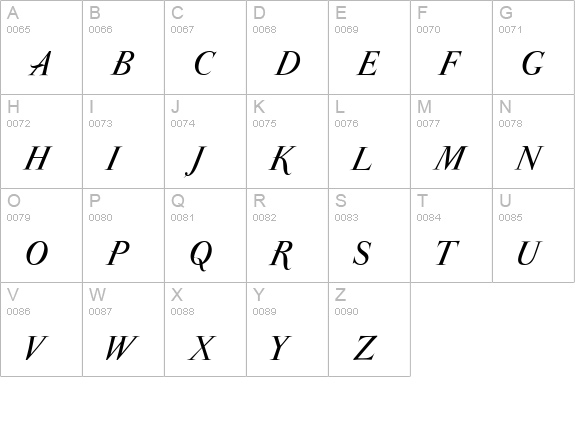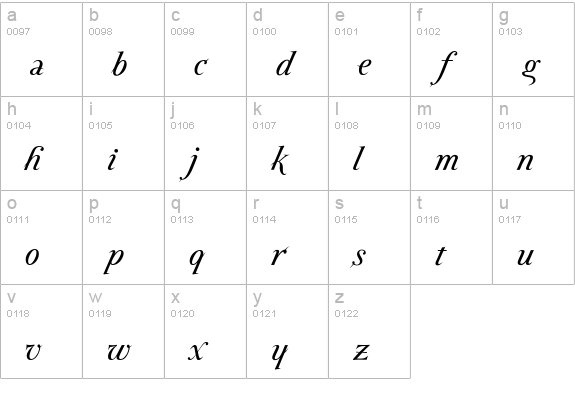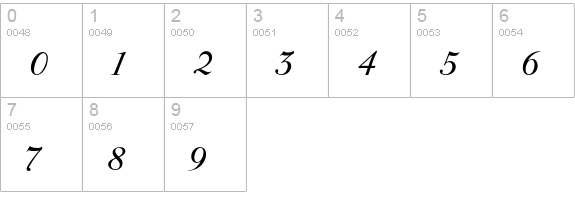
ParmaPetit-Italic is a distinctive, italic variant in the ParmaPetit typeface family \xE2\x80\x94 well suited to design and typography projects.
Introducing ParmaPetit-Italic, an exquisite font that effortlessly combines elegance and grace. With its delicate, slanted strokes and sophisticated curves, this typeface exudes a sense of refinement and sophistication. ParmaPetit-Italic captures attention with its unique blend of modernity and classical charm. Its slender letterforms, perfectly balanced spacing, and subtle variations in stroke width create a harmonious and pleasing visual experience. Each character is meticulously crafted to maintain readability while adding a touch of artistic flair. This font is perfect for any design project that aims to convey a sense of elegance, whether it be invitations, branding, packaging, or editorial layouts. Its versatility allows it to seamlessly fit into various design styles, effortlessly elevating any piece it graces. One of the most remarkable aspects of ParmaPetit-Italic is that it is available for free. Yes, you read that right. This extraordinary font can be freely downloaded at FontsMarket.com. This means that you can easily access and utilize its beauty without any cost or restrictions. So, why wait? Enhance your designs with the timeless beauty of ParmaPetit-Italic. Download it today at FontsMarket.com and experience the power of elegance and creativity at your fingertips.